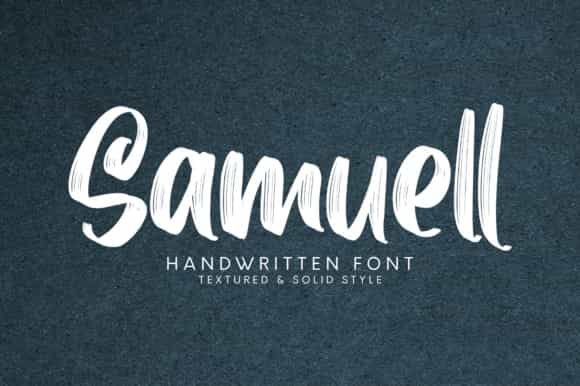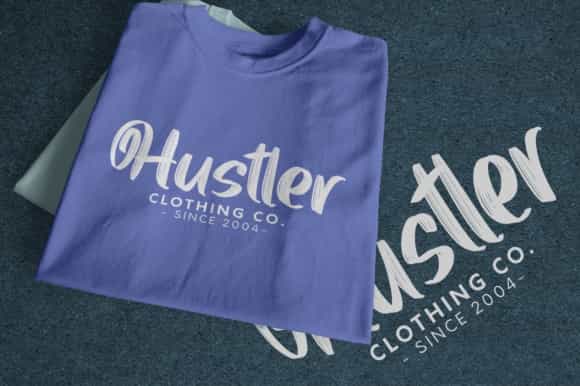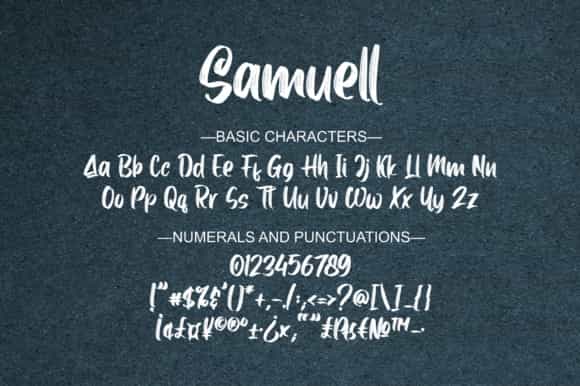
We are really delighted to welcome this beautiful script style typeface. Since it adds such a modern feel to a project that is truly special, it will turn every design into a stand out. You’re going to love its modern feel, and it’s the perfect text for literally any design project be it branding, design projects logos, apparel t-shirts Hoodies footwear packaging product packaging Flyers advertising or posters. Use Samuell Holy Brush script font for all types of art!